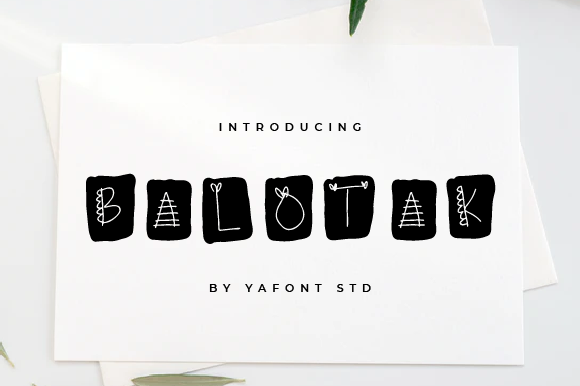
Unleash Your Creativity with Balotak Font: A Unique Display Font
Are you tired of using the same old fonts in your projects? Do you want to add a touch of originality and creativity to your designs? Look no further than Balotak Font, a unique display font that is sure to take your projects to the next level. In this article, we’ll explore the features and benefits of Balotak Font, and show you how to get the most out of this amazing font.
What is Balotak Font?
Balotak Font is a display font that boasts an original and outstanding look. Its unique design makes it perfect for adding a touch of personality to your projects. Whether you’re a designer, craftsperson, or simply someone who loves to create, Balotak Font is sure to inspire you to new heights.
Key Features of Balotak Font
- Unique Design: Balotak Font features an original and outstanding design that sets it apart from other fonts.
- Display Font: Balotak Font is specifically designed as a display font, making it perfect for headlines, titles, and other prominent text elements.
- High Versatility: Balotak Font can be used in a wide range of projects, from digital designs to print materials.
Benefits of Using Balotak Font
So why should you choose Balotak Font for your projects? Here are just a few benefits of using this amazing font:
- Adds Personality to Your Designs: Balotak Font’s unique design allows you to add a touch of personality to your projects, setting them apart from the crowd.
- Increases Creativity: With Balotak Font, you’ll be inspired to think outside the box and push the boundaries of your creativity.
- Perfect for Display Text: Balotak Font is specifically designed for display text, making it perfect for headlines, titles, and other prominent text elements.
- Great for Branding: Balotak Font’s unique design makes it perfect for branding projects, allowing you to create a memorable and recognizable identity for your business or organization.
Inspiration with Balotak Font
Balotak Font is more than just a font – it’s a source of inspiration. With its unique design and versatility, you can use Balotak Font to create a wide range of projects, from:
- Posters and Flyers: Use Balotak Font to create eye-catching posters and flyers that grab attention.
- Social Media Graphics: Add a touch of personality to your social media graphics with Balotak Font.
- Logos and Branding: Use Balotak Font to create memorable and recognizable logos and branding elements.
- Digital Art: Experiment with Balotak Font to create stunning digital art pieces that showcase your creativity.
In conclusion, Balotak Font is a unique display font that is sure to take your projects to the next level. With its original and outstanding design, Balotak Font is perfect for adding a touch of personality and creativity to your designs. Whether you’re a designer, craftsperson, or simply someone who loves to create, Balotak Font is a must-have font in your collection. So why wait? Get inspired by Balotak Font today and unleash your creativity!